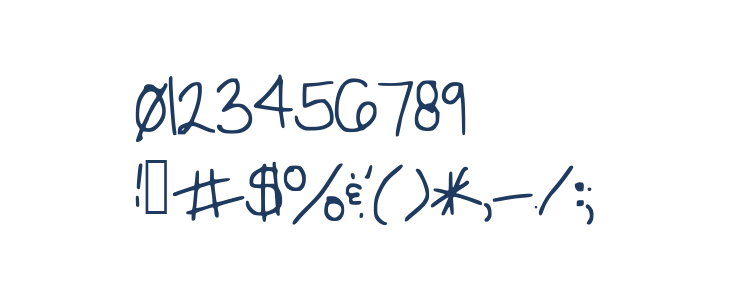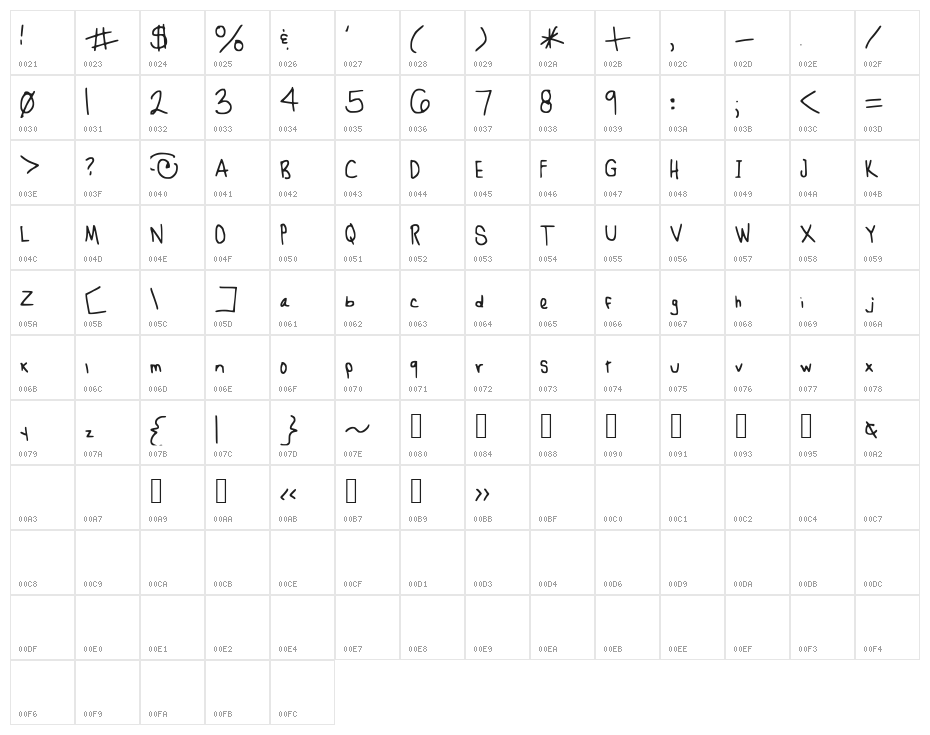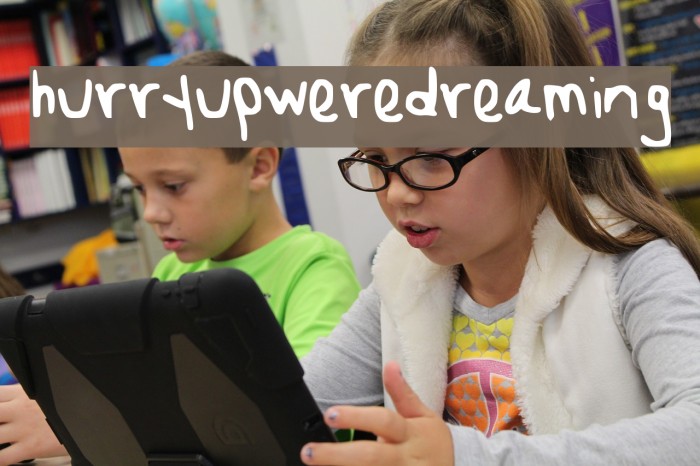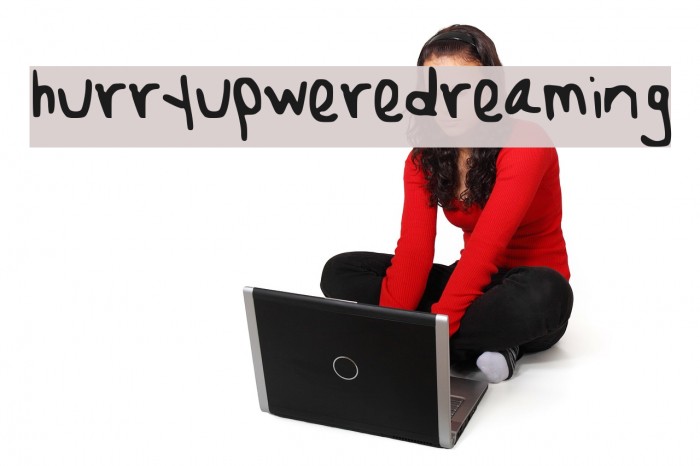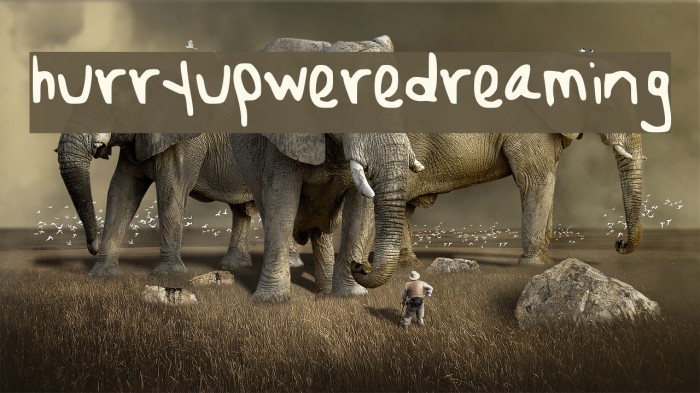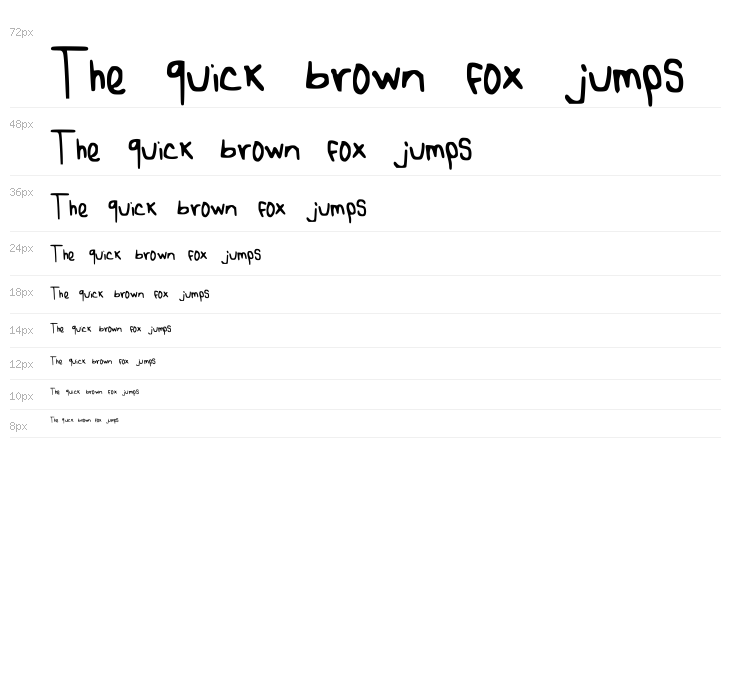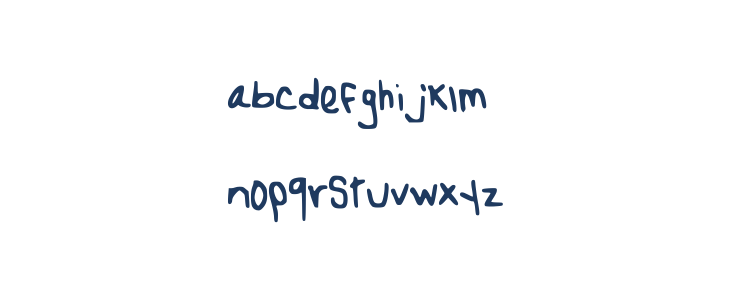
hurryupweredreaming Font
hurryupweredreaming Description
This font features a playful and informal handwritten style, characterized by its uneven strokes and casual appearance. The letters have a slightly irregular baseline, adding to the whimsical and approachable feel. The uppercase and lowercase letters maintain a consistent style, with rounded edges and a relaxed form. Numbers and special characters follow the same informal aesthetic, making the font versatile for creative projects. The overall look is friendly and inviting, suitable for designs that aim to convey warmth and personality.
| Proposed Projects | Ideal for children's books, greeting cards, personal blogs, and creative branding projects. |